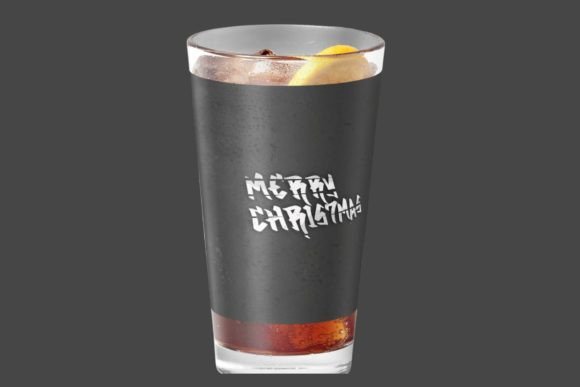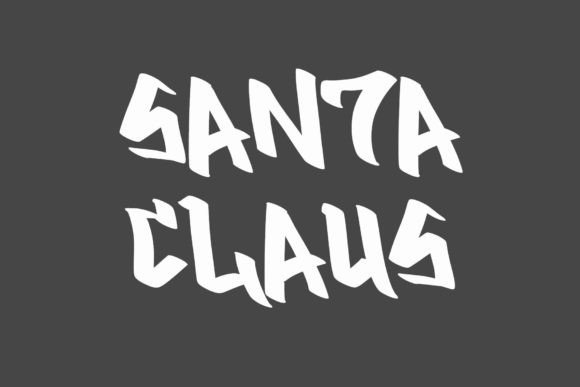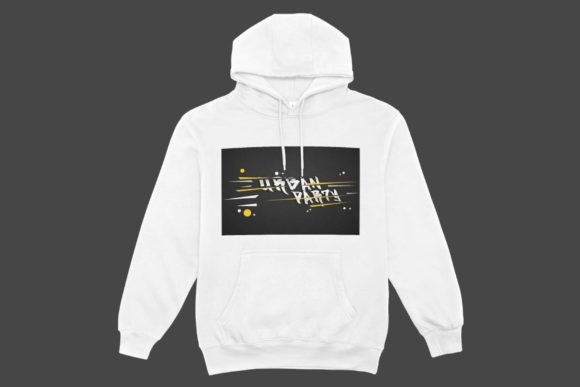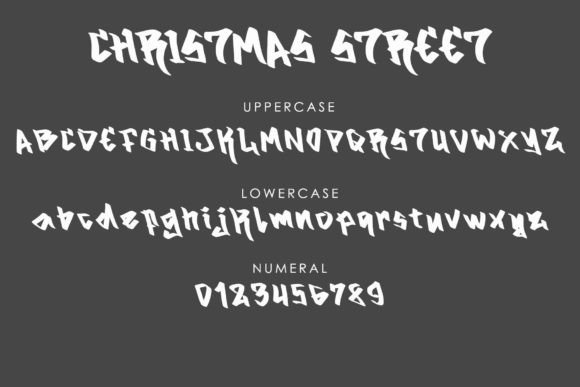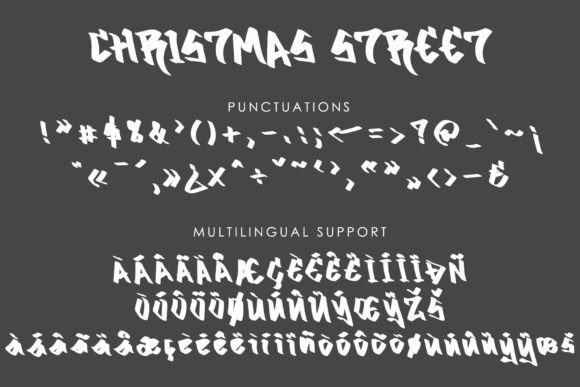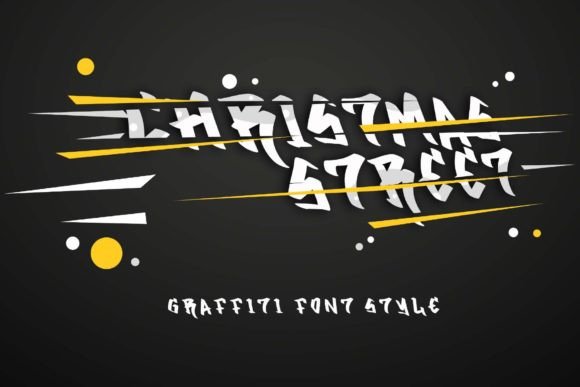
Introducing Christmas Street Font: The Ultimate Elegant Graffiti Font for Holiday Designs
Are you looking for a unique and elegant font to make your Christmas designs stand out? Look no further than Christmas Street Font! This beautiful graffiti font is specifically designed to add a touch of festive flair to your holiday projects, and it’s packed with features that make it perfect for designers and crafters alike.
What Makes Christmas Street Font So Special?
Christmas Street Font is an elegant and unique graffiti font that’s equipped with a wide range of characters, including uppercase and lowercase letters, numerals, punctuations, and multilingual support. This means that you can use it to create a variety of different designs, from Christmas greetings and event invitations to logos, banners, posters, prints, branding, stickers, and more.
One of the things that sets Christmas Street Font apart from other fonts is its elegant and sophisticated style. The font features beautiful, hand-crafted lettering that’s perfect for creating high-end designs that will impress your clients or friends and family. Whether you’re looking to create a festive holiday card or a professional-looking logo, Christmas Street Font is the perfect choice.
Key Features of Christmas Street Font
Here are just a few of the key features that make Christmas Street Font so versatile and easy to use:
- Uppercase and Lowercase Letters: Christmas Street Font includes both uppercase and lowercase letters, making it easy to create professional-looking designs with a personal touch.
- Numerals and Punctuations: The font also includes a range of numerals and punctuations, giving you everything you need to create complete and polished designs.
- Multilingual Support: With multilingual support, you can use Christmas Street Font to create designs in a variety of languages, making it perfect for businesses or individuals with a global audience.
How to Use Christmas Street Font in Your Designs
Christmas Street Font is incredibly easy to use, and it can be incorporated into a wide range of designs, including:
- Christmas Greetings: Use Christmas Street Font to create beautiful and elegant Christmas greetings that will impress your friends and family.
- Christmas Events: Create eye-catching invitations and promotional materials for your Christmas events, such as parties, parades, or festivals.
- Logos and Branding: Use Christmas Street Font to create professional-looking logos and branding materials that will help your business stand out during the holiday season.
- Banners and Posters: Create stunning banners and posters that will grab attention and add a touch of festive flair to your holiday displays.
- Prints and Stickers: Use Christmas Street Font to create beautiful prints and stickers that make perfect decorations or gifts.
Tips for Getting the Most Out of Christmas Street Font
Here are a few tips for getting the most out of Christmas Street Font:
- Experiment with Different Colors: Christmas Street Font looks great in a range of different colors, so don’t be afraid to experiment and find the perfect hue for your design.
- Pair it with Other Fonts: Christmas Street Font pairs well with a range of other fonts, so try combining it with different fonts to create a unique and eye-catching design.
- Use it in Combination with Images: Christmas Street Font looks great in combination with images, such as illustrations or photographs, so try incorporating it into your designs to add an extra layer of interest.